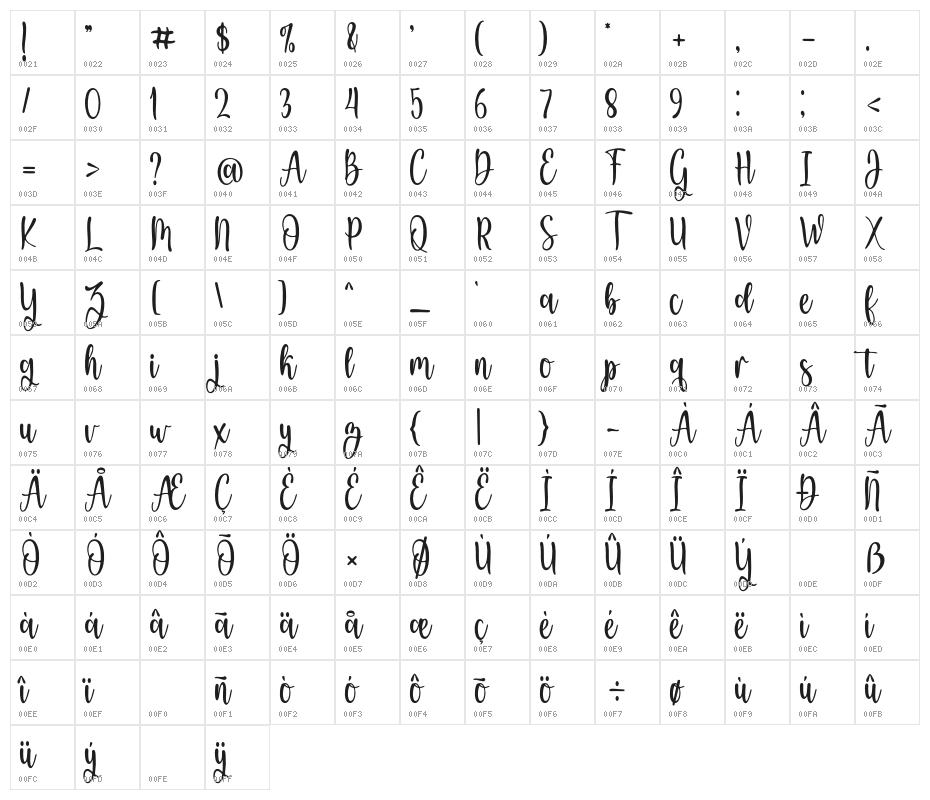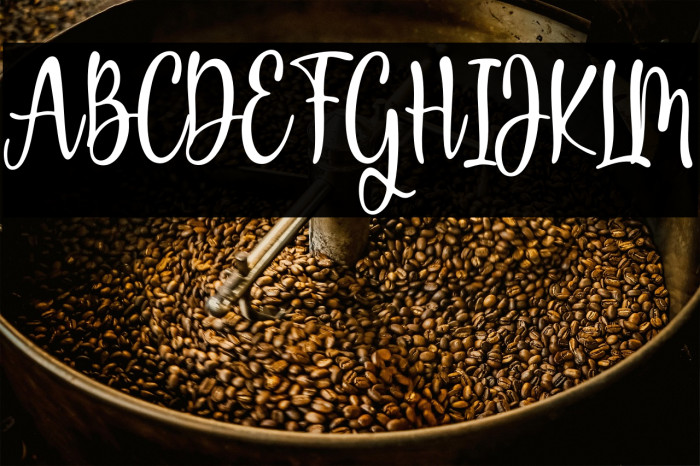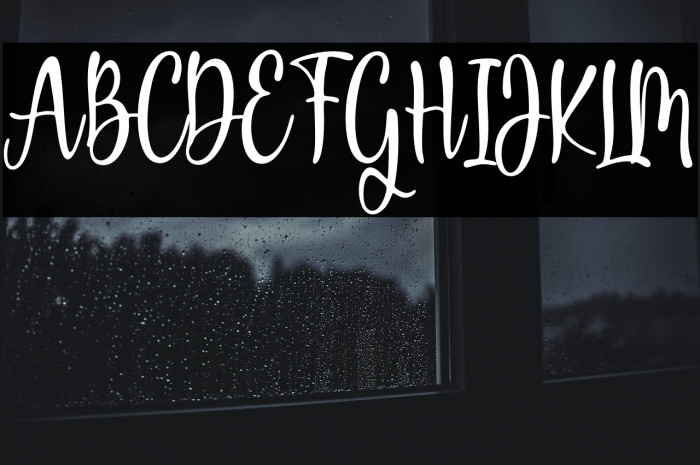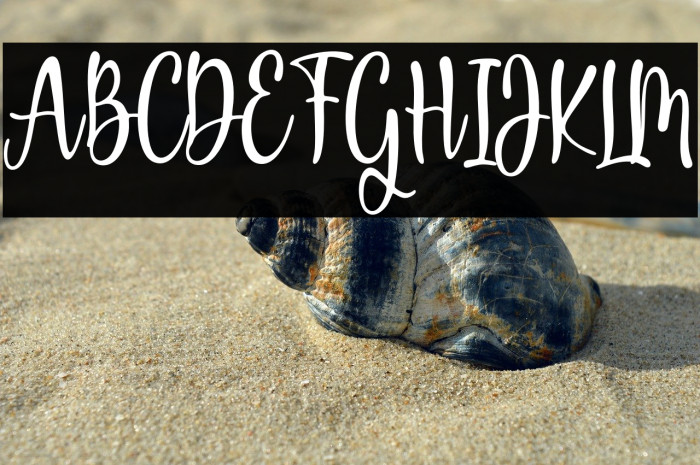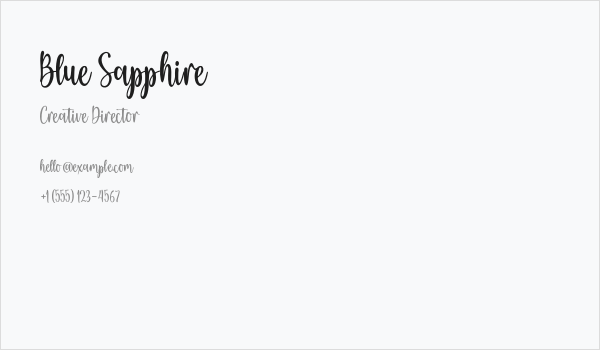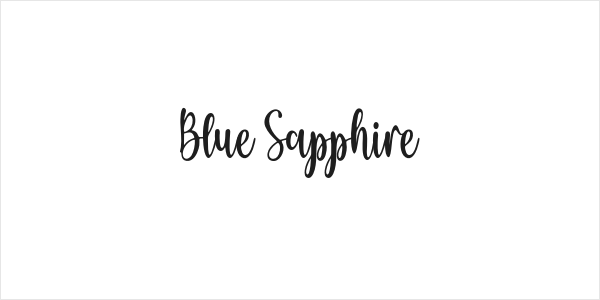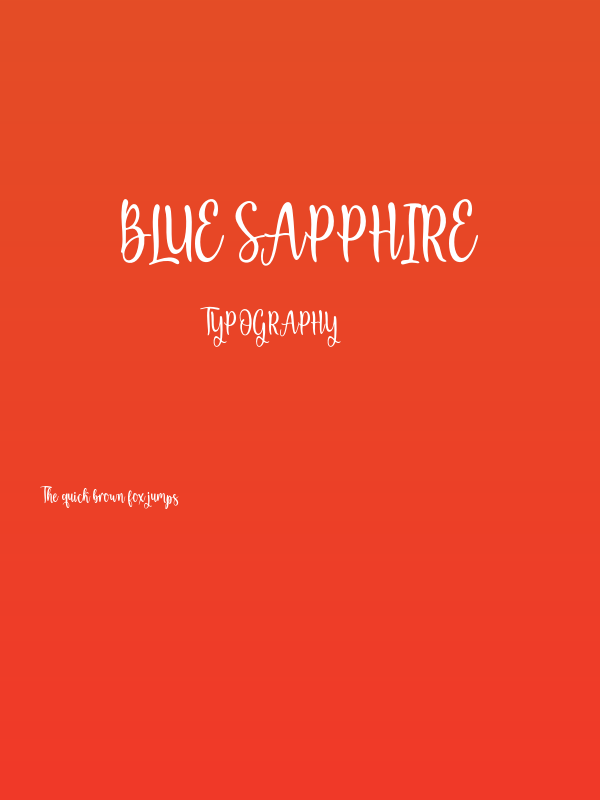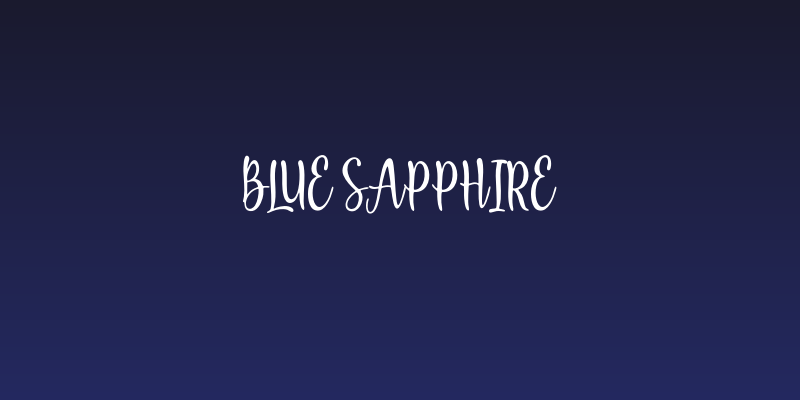
Blue Sapphire Font
Blue Sapphire Description
This font features a playful and whimsical script style, characterized by its flowing, cursive letters. The uppercase and lowercase letters are designed with a consistent stroke width, giving it a balanced and harmonious appearance. The characters exhibit a hand-drawn quality, with smooth curves and loops that add to its charm. The numerals and special characters maintain the same lively aesthetic, making it suitable for creative and informal designs. Its overall look is both elegant and approachable, perfect for adding a personal touch to any project.
| Proposed Projects | Ideal for greeting cards, invitations, personal branding, and creative projects. |